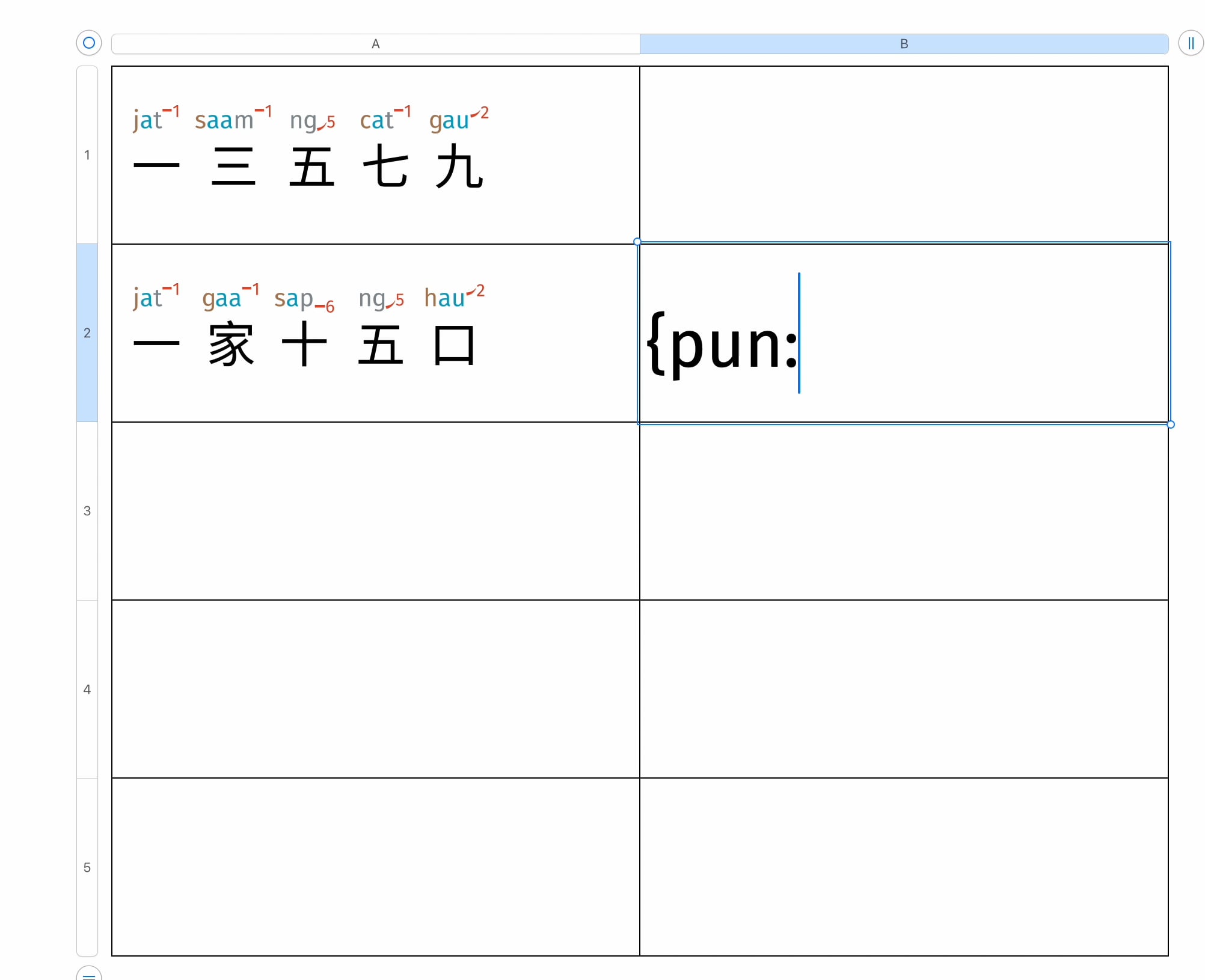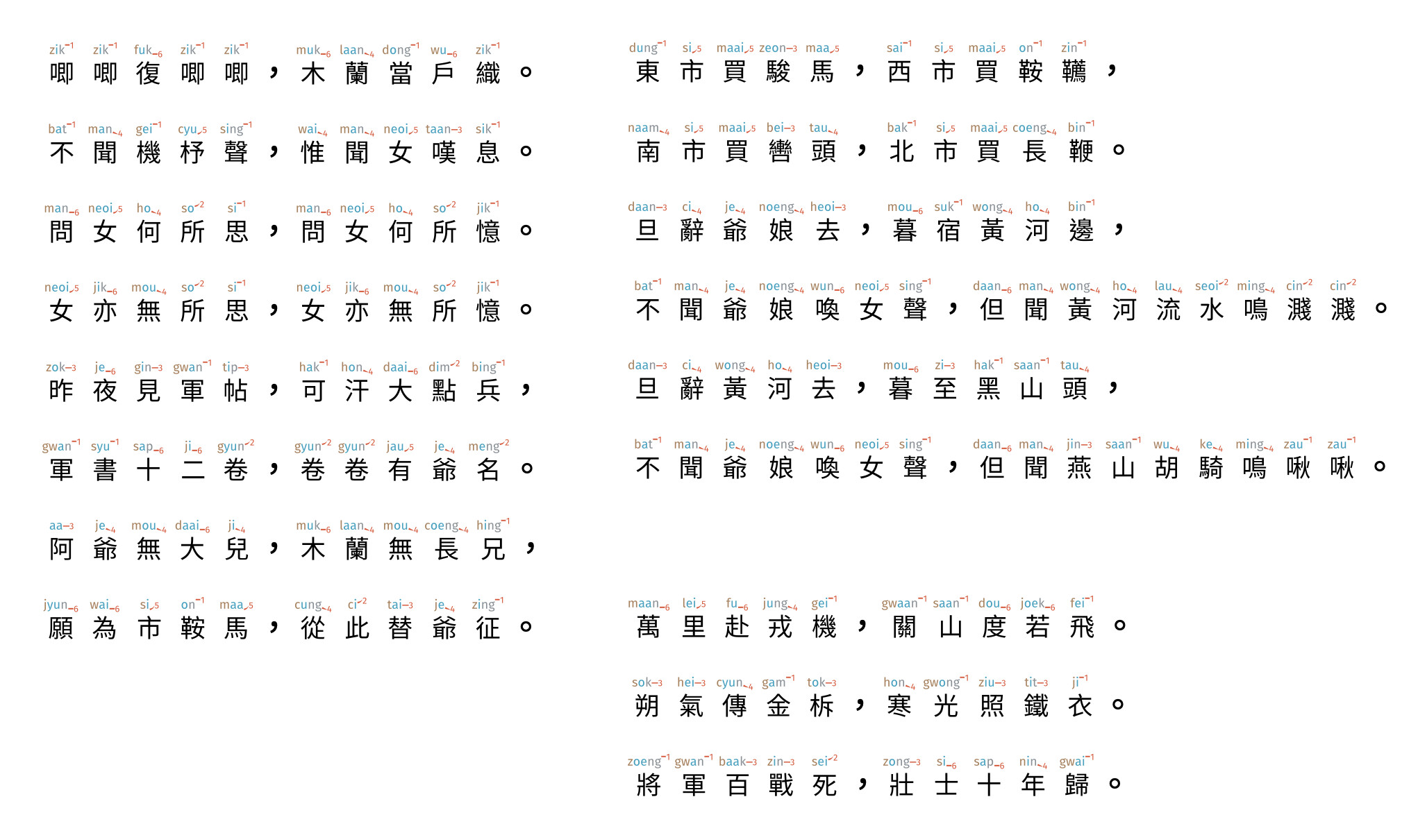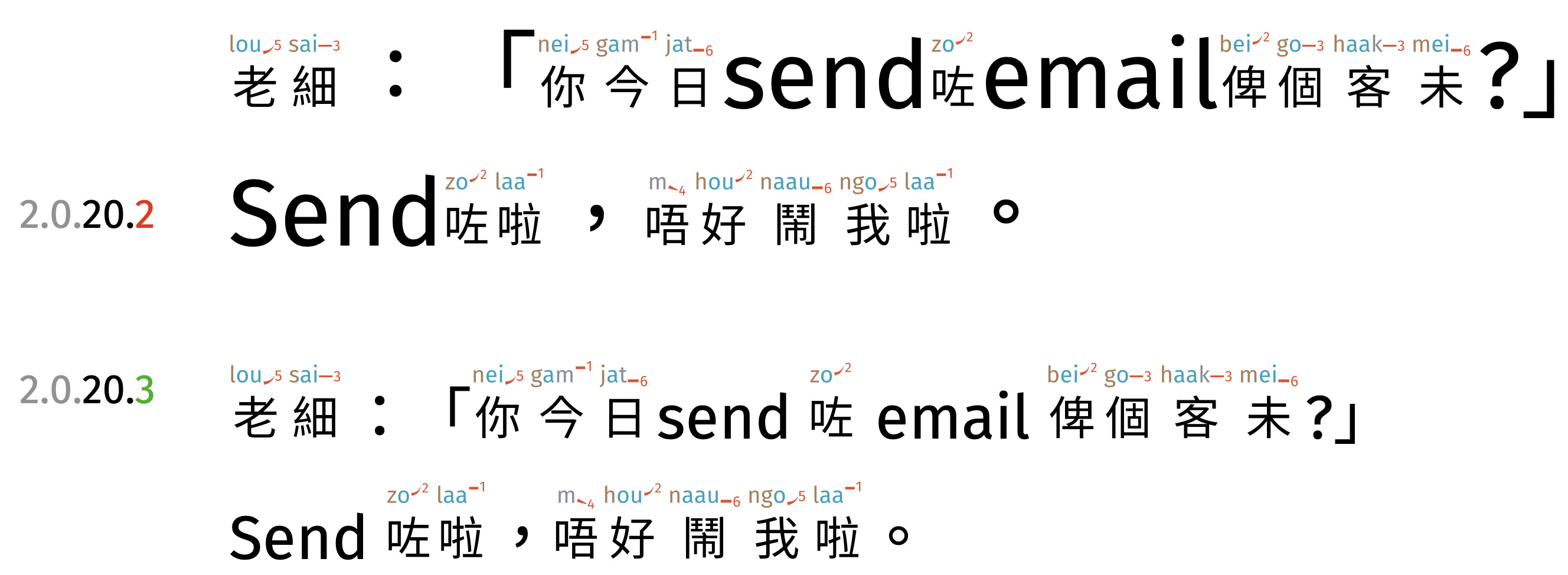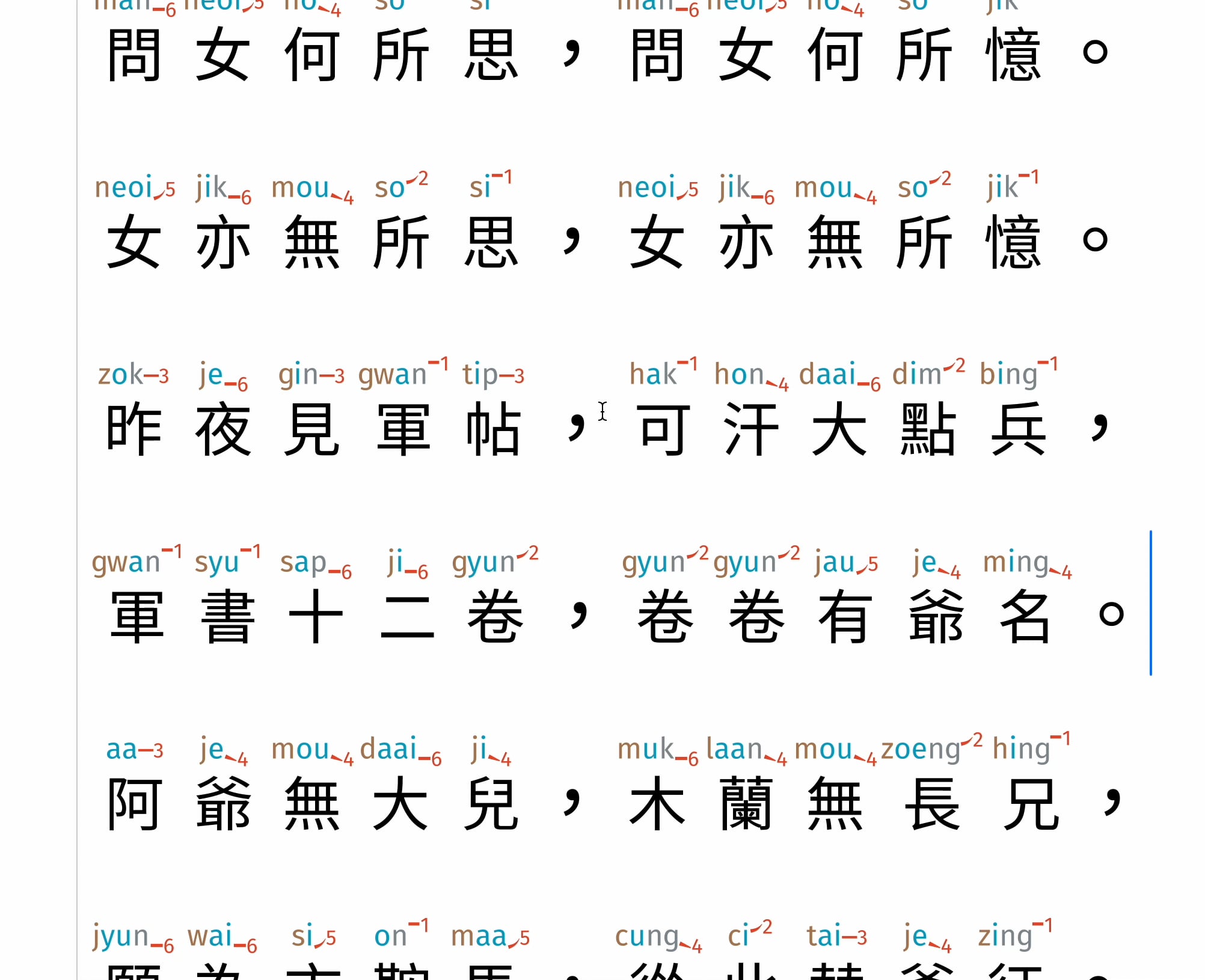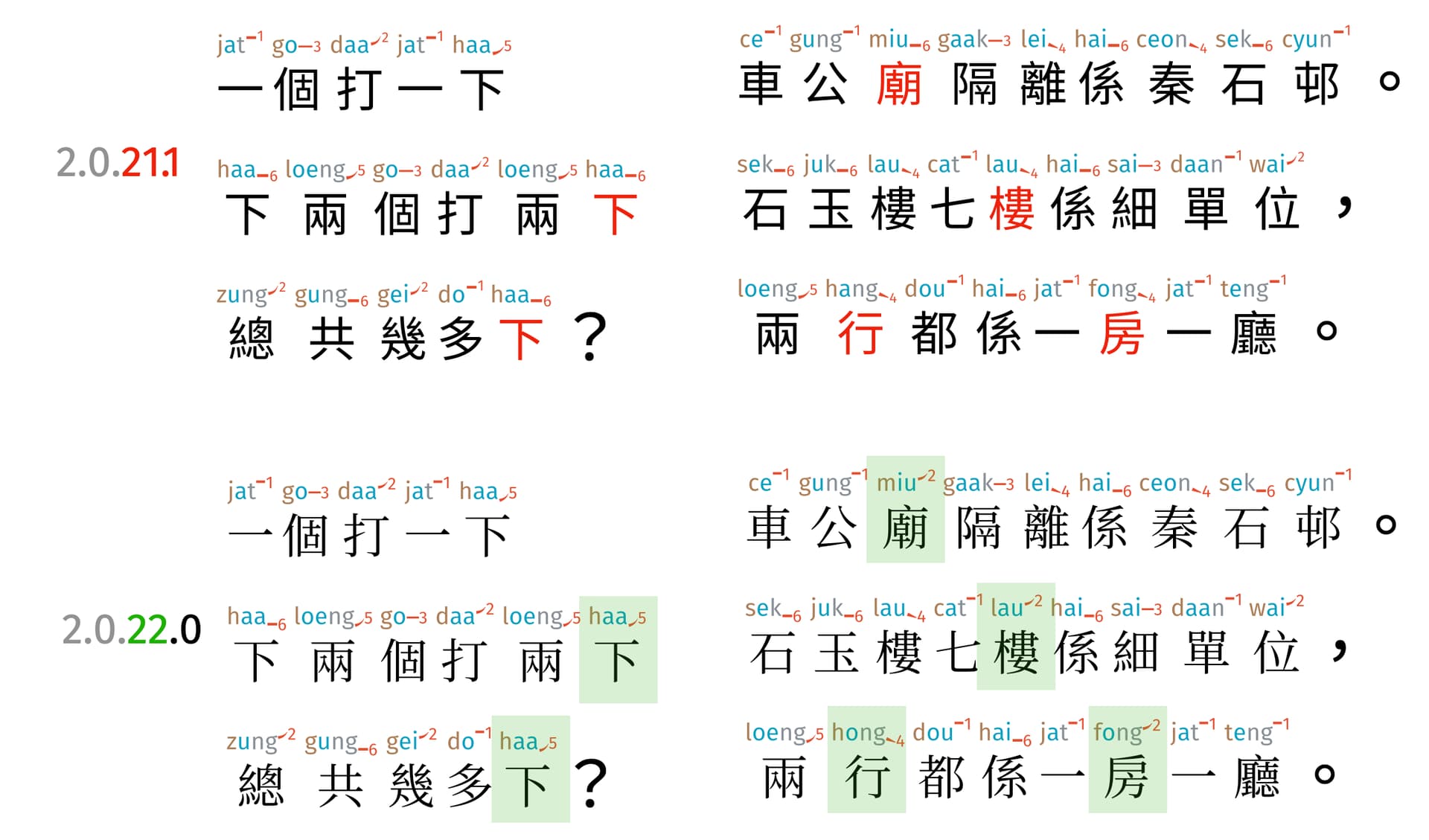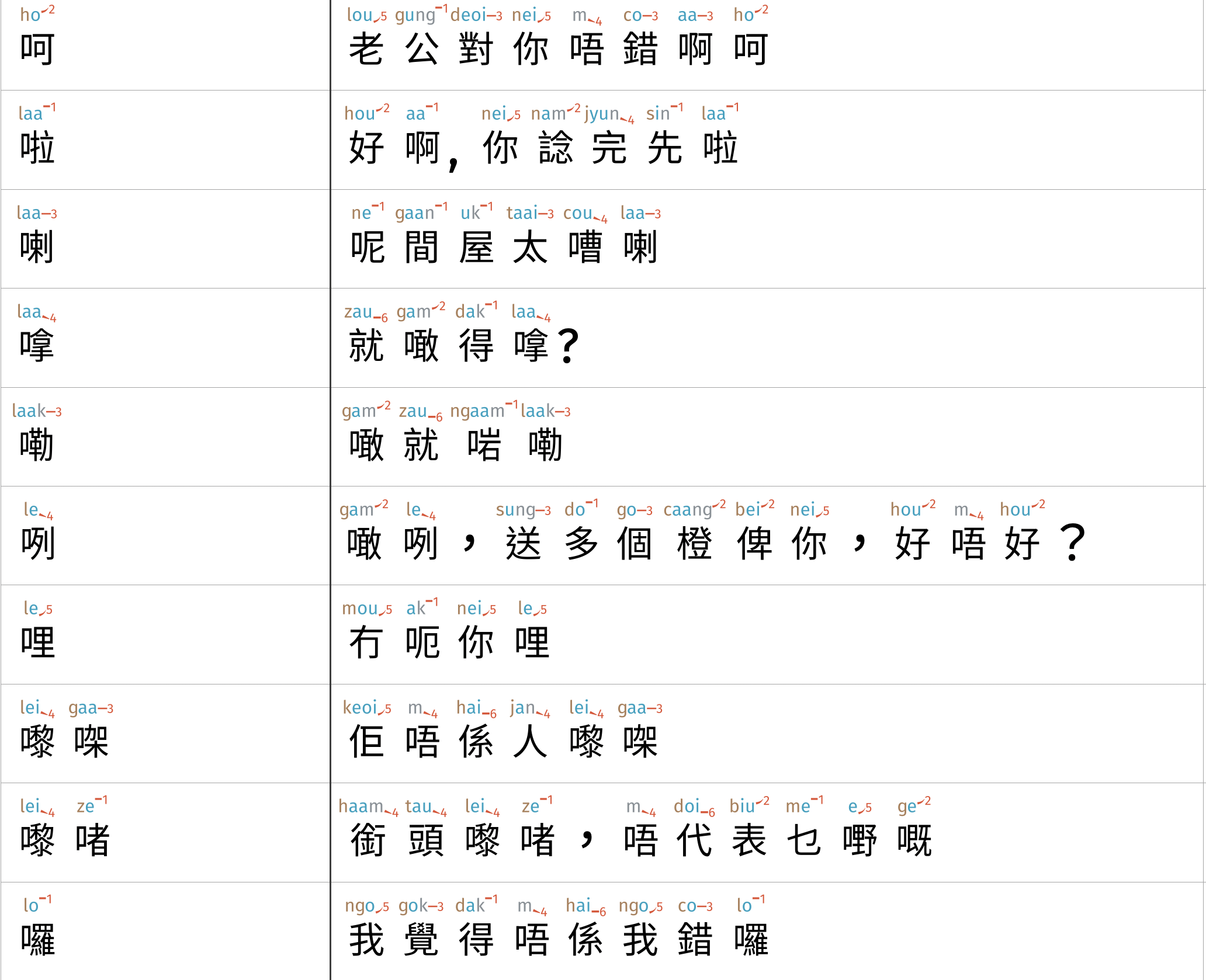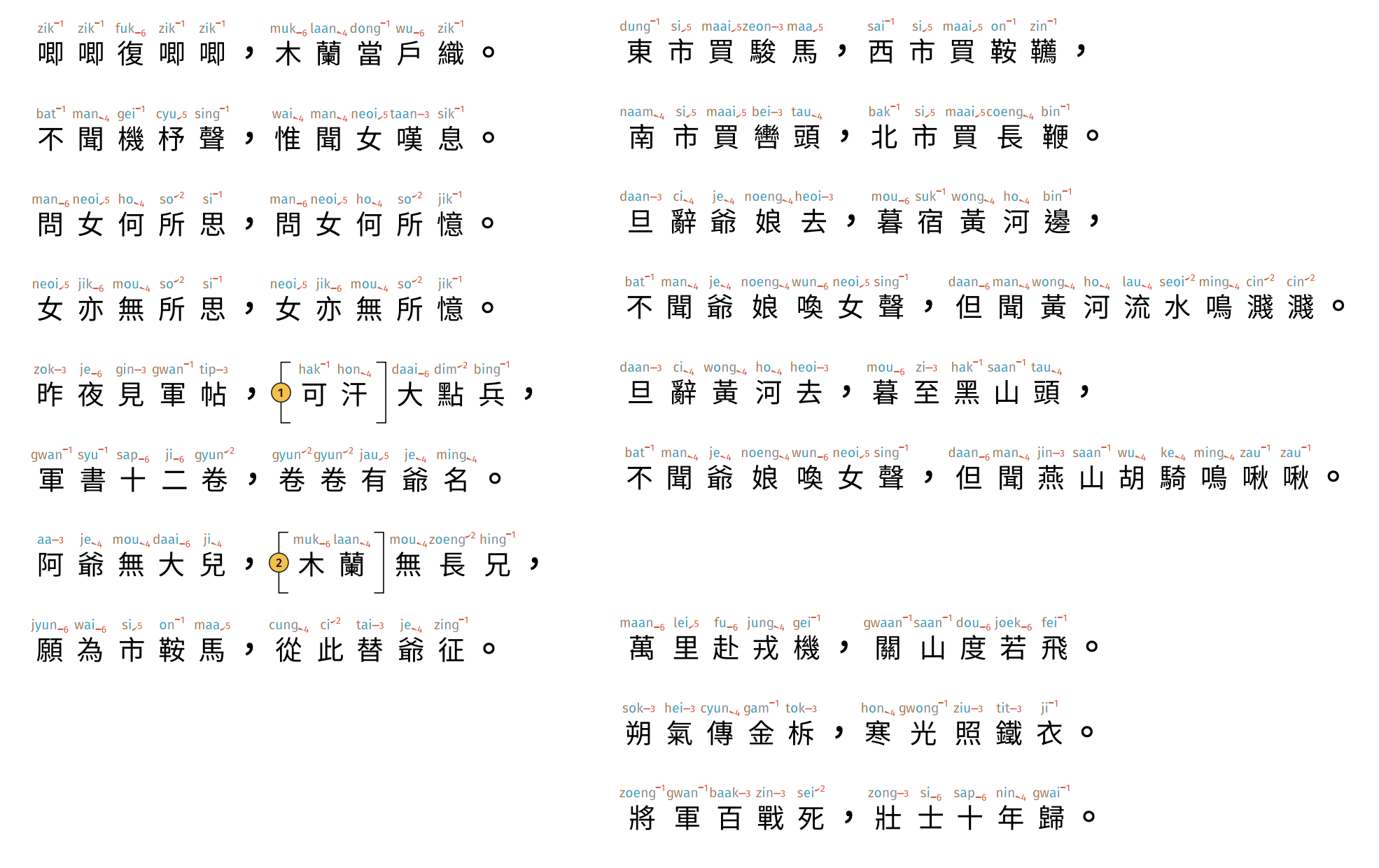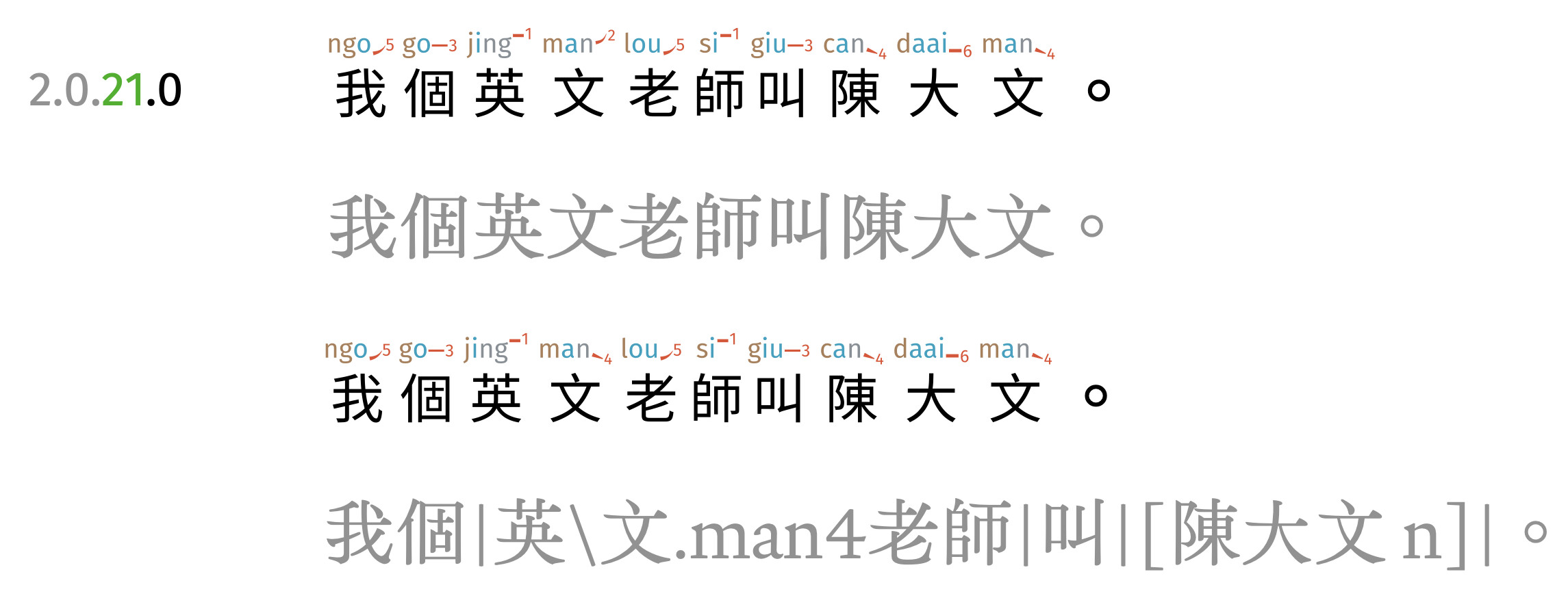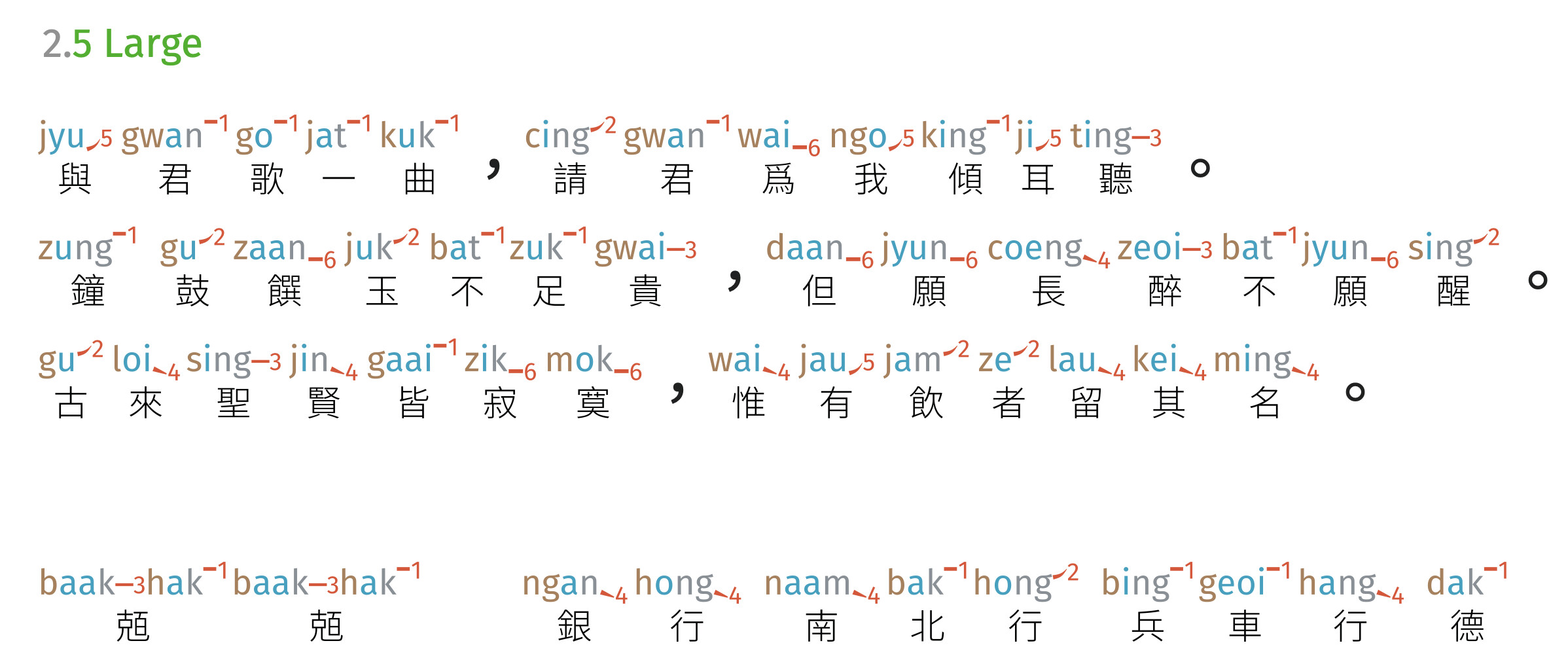
Cantonese Font v2 - Development Roadmap & Status
[WIP]
Bug Fix Needed
• :white_check_mark: insert CJK punctuations into base (2024-02-07)
• :white_check_mark: find a way to fix mixed alphanumeric / CJK scripts with correct metrics (2024-02-07)
• fix incorrect coda coloring for [aeiou]
• :white_check_mark: re-do default character pronunciations (2024-02-20)
:white_check_mark: re-draw tone glyphs with more principled method (2024-02-20)
Missing features
• :white_check_mark: add | \ as zero-width non-joiner marker (2024-02-07)
• :white_check_mark: add 1,000 成語 sorted by char grade (2024-02-20)
• :white_check_mark: add 300 歇後語 sorted by char grade
• add China provincial maps
• :white_check_mark: add En-Zh dictionary
• :white_check_mark: from v1 (2024-02-22)
• :white_check_mark: additional 1,500 (2024-02-22)
• :white_check_mark: admit inflections and conjugations (2024-02-24)
• :white_check_mark: add Zh-En dictionary
• add 易經符號
:white_check_mark: added standalone tone marks glyphs, to be accessible in 2.0.22.1 via {tone 1} syntax. (2024-02-20)
Aspirational investigations
• :white_check_mark: GPOS and GSUB based non-show, for [文字 class] (in-progress from 2.0.21.0 / 2024-02-07, completed 2.0.21.1 / 2024-02-08)
:white_check_mark: introduced wild-type [n] type of word-formation mechanisms (2024-02-20)
• :white_check_mark: no-jyutping font variant (2024-02-26)
• :white_check_mark: GPOS-based cartouche for word boundary visual markers
• GPOS-based squiggles / dot-emphasis
• :skull_and_crossbones: investigate COLR export not possible to do with CJK font due to glyphs upper-bound
2.0.20.3 (2024-02-07)
• :white_check_mark: insert CJK punctuations into base
• :white_check_mark: find a way to fix mixed alphanumeric / CJK scripts with correct metrics
Details
Problem
1. As Fira Sans provides the base glyphs and metrics, it does not contain any CJK glyphs or punctuations. I build only CJK glyphs, so punctuations remain missing. When users asks for these glyphs, either a Latin CJK from Fira Sans or a from a fall-back sans-serif font was displayed.
2. With the jyutping occupying top 1/3 of the full baseline-ascender, the CJK glyphs are smaller. Mixing alphanumeric-CJK glyphs becomes impossible without manually scaling down the non-CJK glyphs.
Solution
1. CJK relevant punctuation glyphs were imported from Noto/Source.
2. all non-jyutping containing glyphs were scaled down to 65% of their original sizes, using the baseline as the origin.
2.0.21.0 (2024-02-07)
• :white_check_mark: add | \ as zero-width non-joiner marker
• :white_check_mark: GPOS and GSUB based non-show, for [文字 class]
Issues
This is part of the work towards a Cantonese markup.
To do correct typesetting (e.g., in LaTeX), we need access to information beyond a string of characters. “我個英文老師叫陳大文” is inadequate; it needs to provide
• correction for 文 as man4,
• word segments (for informed line-breaks),
• name tagging so it can be underlined
Solutions
For single markers, a simple sub ... by ...; rule suffices.
Tags are handled with opening tag [ replaced with a zero-width non-joiner (200C).
The closing tag follows the format of space tag].
My initial approach was to define glyph classes for alphanumeric, then add enough of them to cover lengths of 1-16 characters tags. That turned out to be a baaaaad idea.
During compilation, fonts explicitly generates the possible combinations. In this case, for the last rule, it needs to prepare (26+26+10+2)^16 = 8 E +28 rules. Nope, didn’t work.
It turns out that, being an expansion, the expanded form also needs to observe the 64k char rules for lookups, so practically ~3,000 rules.
The plain-text in the lowest row corresponds to the rendered line just above. Gratifyingly, the “invisible markup” concept works overall.
New thinking as a result
The set of tags need to be carefully thought through. I am favoring a structure of
[CJK xxxx nnn], interchangeable with [CJK nnn xxxx]
[CJK xx nn], interchangeable with [CJK nn xx]
Where:
• x is a lowercase alphabet with a special meaning (not all 26!), and can support up to 4 2 of these alphabet tags;
• nnn is a 1, or 2, or 3 digit number. I think this can be used as a ID for referencing elsewhere (e.g., translation).[^we cannot have 3 digit numbers, which would by itself be 1,000, and is compatible only with 3 choices of single x]
What needs to be enumerated are:
• [CJK xxxx nnn] [CJK xx nnn] [CJK nnn]
• [CJK xxxx nn] [CJK xx nn] [CJK nn]
• [CJK xxxx n] [CJK xx n] [CJK n]
• [CJK nnn xxxx] [CJK nnn xx] [CJK nnn x]
• [CJK nn xxxx] [CJK nn xx] [CJK nn x]
• [CJK n xxxx] [CJK n xx] [CJK n x]
• [CJK xxxx] [CJK xx] [CJK x]
These me-e / ze-e are very commonly found, and I think it is quite important that teachers / parents are equipped with tools to express them.
Docs